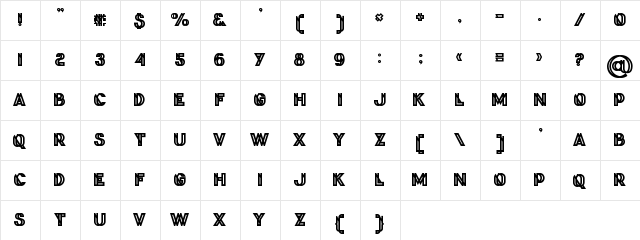
phantom bold Regular
Design Context for phantom bold Typeface
phantom bold is a composed and adaptable typeface that performs quietly and consistently across a wide range of design contexts. Its bold stroke weight gives it real presence on the page.